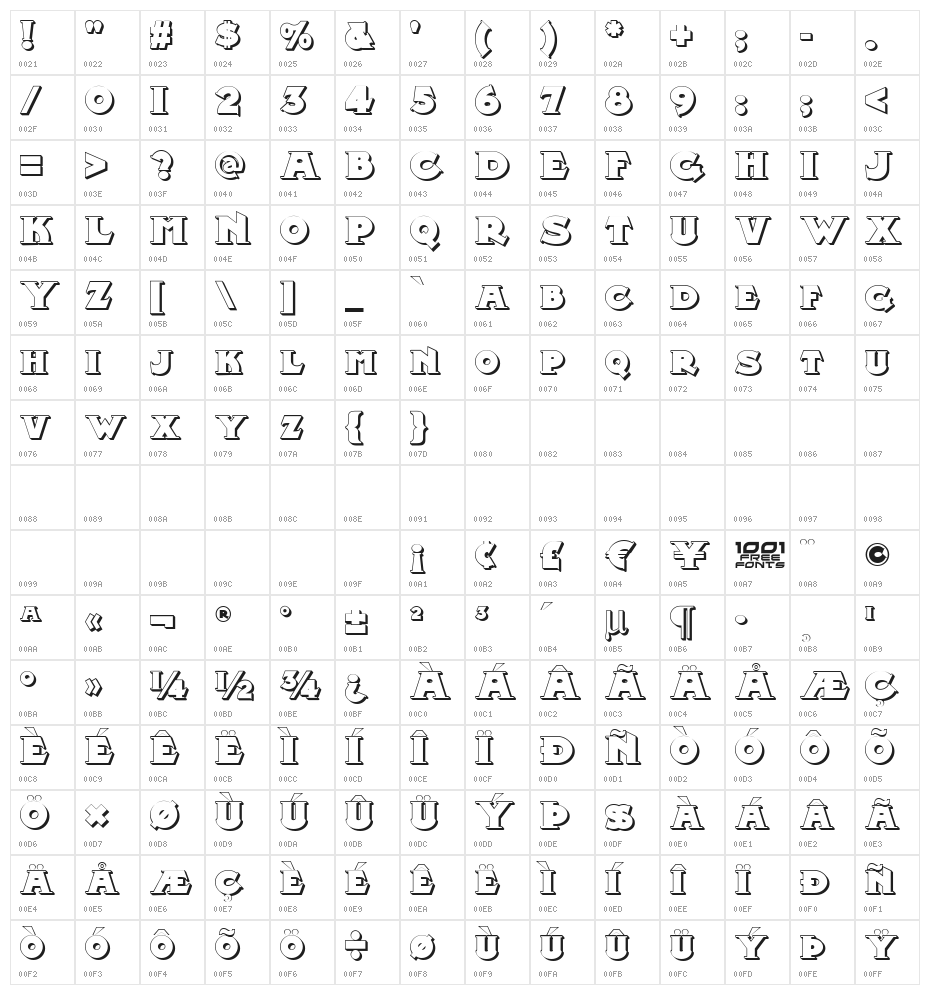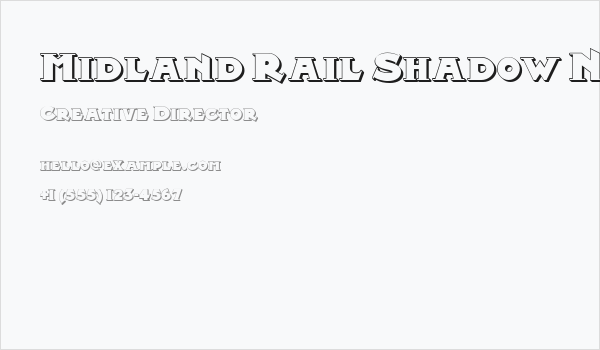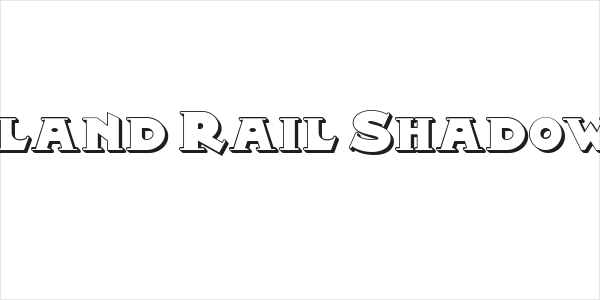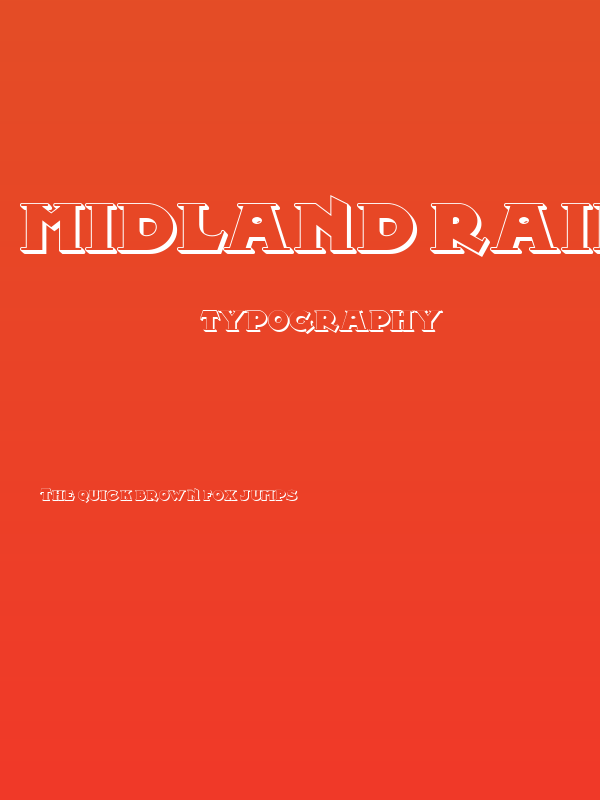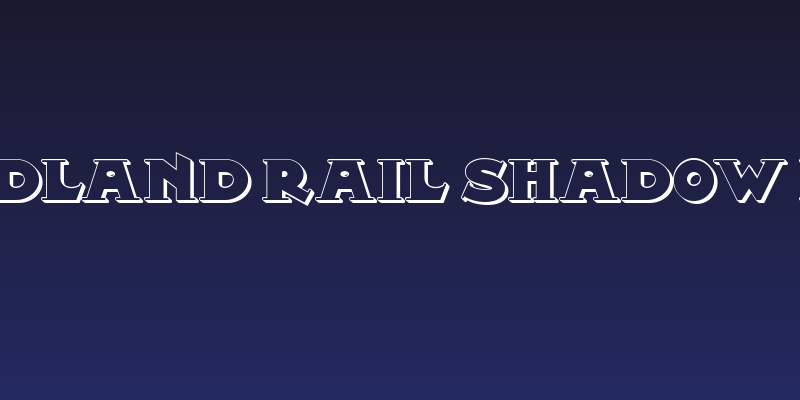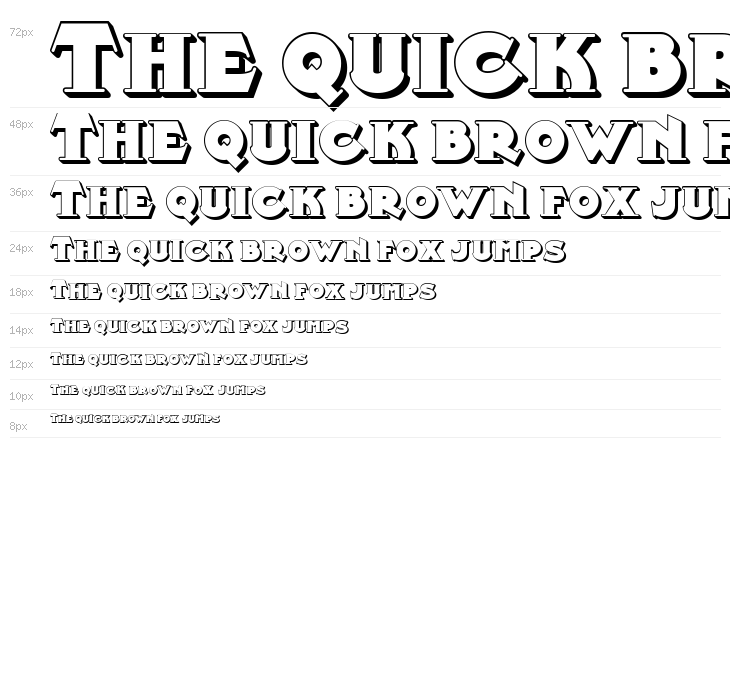
Midland Rail Shadow NF Font
Midland Rail Shadow NF Description
This font features a bold and striking design with a shadow effect that gives it a three-dimensional appearance. The characters are uppercase and have a strong presence, making them ideal for attention-grabbing headlines or titles. The shadow is consistent across all characters, adding depth and a sense of movement. The font's style is reminiscent of vintage signage, with a playful yet authoritative feel. Its geometric shapes and clean lines contribute to a modern aesthetic, while the shadow adds a touch of retro charm. The font is versatile, suitable for both digital and print media, and can be used to create a dynamic visual impact.
Overall StyleVintage, Modern
Proposed ProjectsIdeal for posters, logos, branding, and headlines where a bold statement is needed.